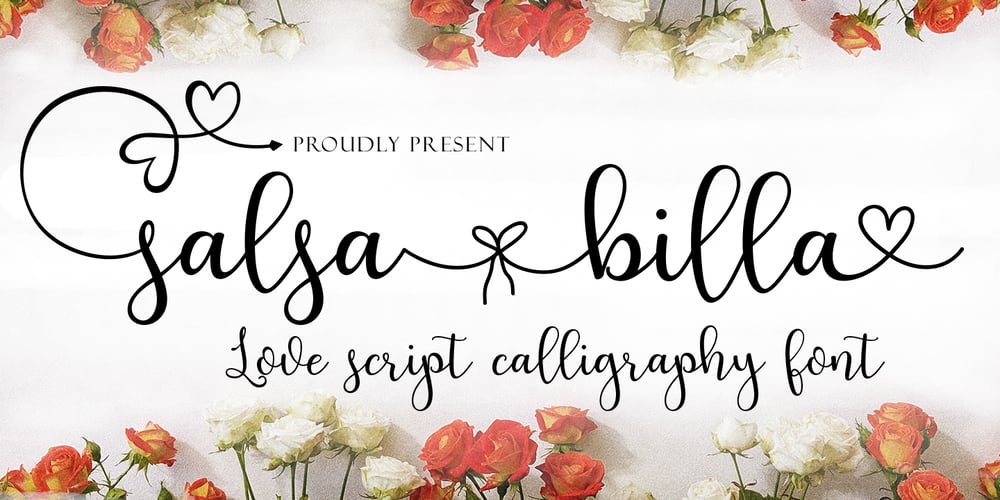
Salsa Billa Font Family was designed by Nasrullah and published by Sulthan Studio. Salsa Billa contains 1 styles and family package options. Salsa Billa is new, fresh, funny, interesting, cute calligraphy font. It includes hearts and cute cords as alternatives. It is suitable for greeting cards, branding materials, business cards, quotes, posters, and more!Salsa Billa is coded with Unicode PUA, which provides full access to all additional characters without having special design software.